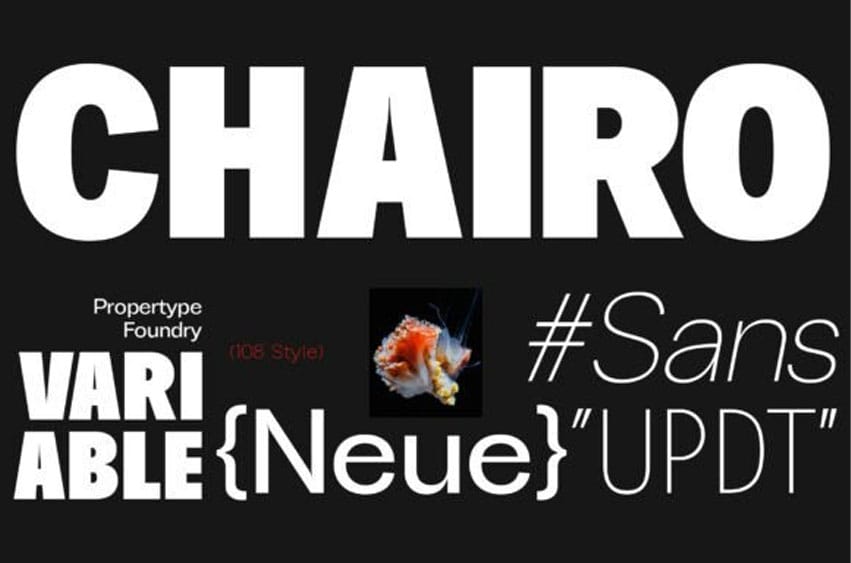
Chairo Neue Font is an elegant, modern, and contrasting sans-serif font family. Its strong, wide, and bold structure delivers massive impact, making it ideal for commanding headlines, posters, and brand identities. Being a Variable Font (like the Neue styles shown), it allows designers to smoothly adjust weight, width, or other properties, making it the ultimate tool for cutting-edge digital and print projects where typographic control is paramount.
It comes in 109 styles, including both upright and italic styles, each with seven weights ranging from thin to bold. It’s a versatile font perfect for any project, contrasting, modern, and easy to read. With this font, you can create logos, use it in advertisements, packaging, book and magazine covers, titles, descriptions, and more.